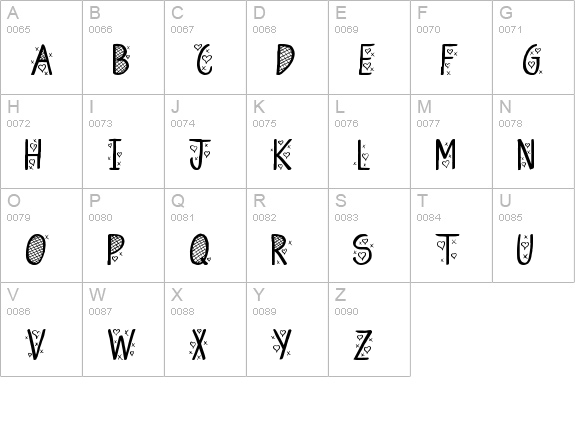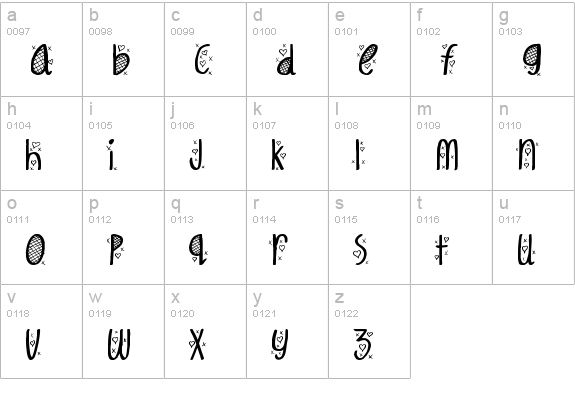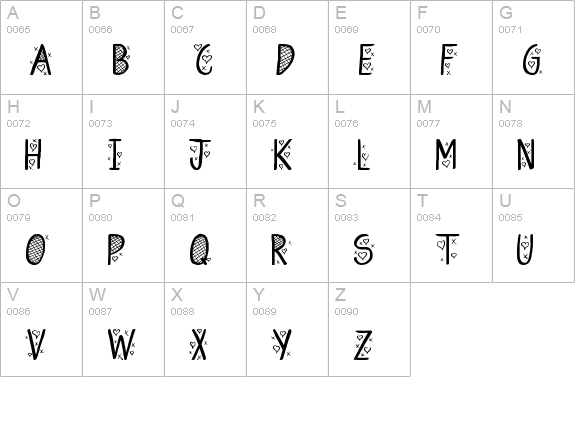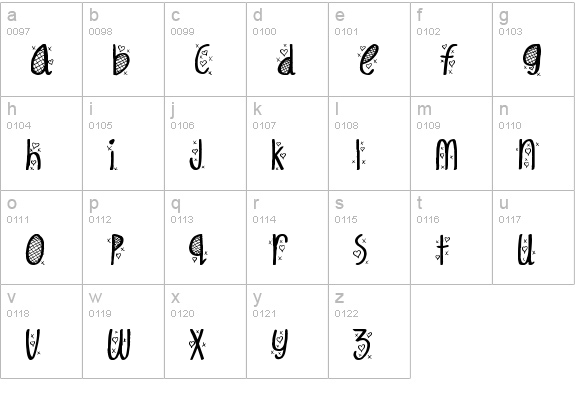
Introducing Hey Cutie, a whimsical and delightful font that will add a touch of playfulness to any design project. This font is perfect for those looking to evoke a sense of fun and charm, while still maintaining a professional feel. With its unique and eye-catching letterforms, Hey Cutie is sure to capture attention and leave a lasting impression. But what sets Hey Cutie apart from other fonts? Well, it's not just its adorable design, but also the fact that it is completely free! That's right, you can download Hey Cutie for absolutely no cost at all. Whether you're a professional designer or just someone looking to add a little flair to your personal projects, Hey Cutie is freely available to download at FontsMarket.com. This font is versatile and can be used for a wide range of design purposes. From greeting cards and invitations to logos and branding, Hey Cutie will bring a touch of whimsy to any project. Its clean lines and legible characters make it easy to read, while its unique style adds a fun and lighthearted element. Hey Cutie is also incredibly easy to use, with its OpenType features allowing for seamless integration into various design software. So whether you're a seasoned designer or just starting out, you can easily incorporate Hey Cutie into your work. So why wait? Download Hey Cutie today and let your creativity run wild. With its playful charm and free availability, this font is sure to become a favorite in your font collection. Don't miss out on the opportunity to add a touch of cuteness and whimsy to your designs – get Hey Cutie now, exclusively at FontsMarket.com.